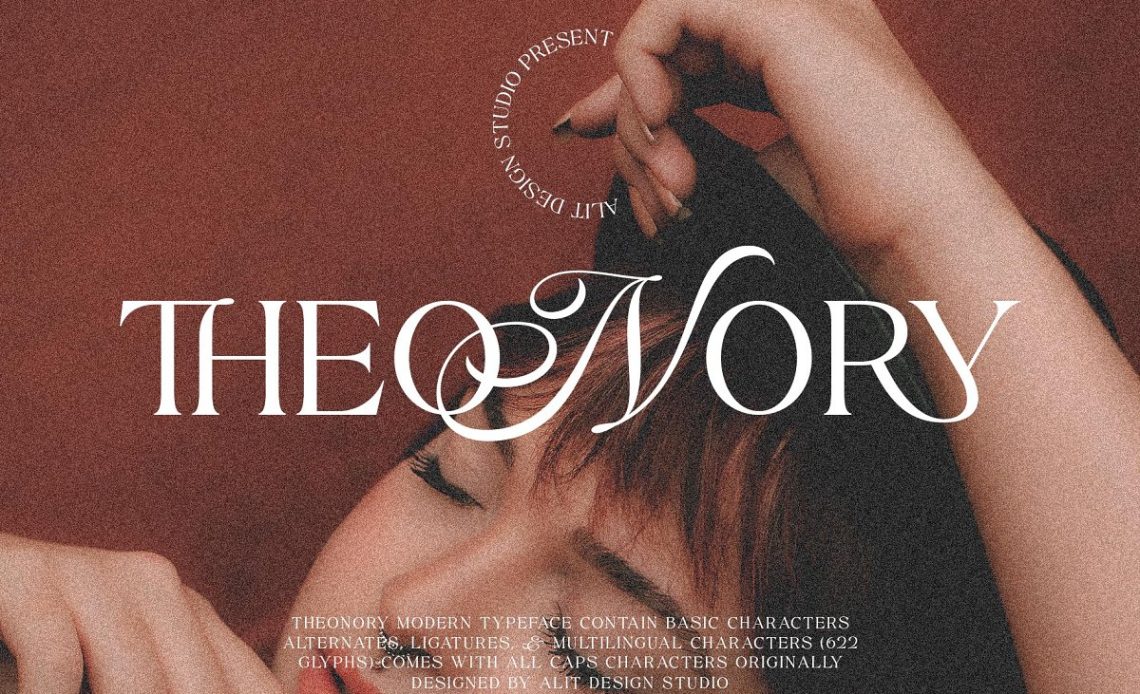
Introducing THEONORY, the newest addition to your font collection. Created by alitdesign, this font is a perfect combination of an elegant script font and a simple yet charming serif font style. With its modern serif style and unique script-style letters, THEONORY stands out from other fonts you have ever used.
THEONORY is the perfect font for those looking to create magazine covers, brochures, flyers, Instagram ads, Canva designs, and more with a unique and modern concept. The font is easy to use in both design and non-design programs thanks to its support of Unicode (PUA) and its 622 glyphs with many unique and interesting alternative options.
If you're looking to add even more personality to your designs, THEONORY also includes beautiful swashes. To access these swashes, you'll need a program that supports OpenType features like Adobe Illustrator CS, Adobe Photoshop CC, Adobe Indesign, and Corel Draw. Don't worry if your software doesn't have Glyphs panel; you can easily install additional swashes font files.